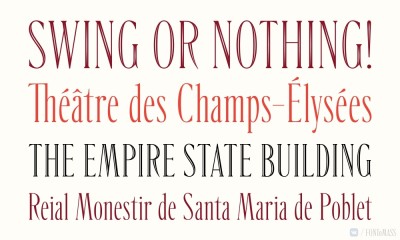
Beaujolais Font is perfect for French wine estate branding, vineyard tasting room signage, wine festival promotional materials, gourmet restaurant menus, French countryside tourism, wine cellar displays, sommelier certification programs, and elegant wine appreciation campaigns.
What makes Beaujolais Font so exciting is its wine sophistication that captures the refined elegance and viticultural excellence of French winemaking traditions and vineyard heritage. This typeface features graceful letterforms with wine-inspired proportions, vineyard character details, and French styling that evokes rolling vineyards, wine cellars, and the kind of sophisticated taste that defines memorable wine experiences and viticultural excellence.
Beaujolais Font typically comes in regular and bold weights, often including ultra-elegant variations and extended character sets with wine symbols, vineyard ornaments, French elements, and comprehensive international language support, all designed to maintain the authentic French wine aesthetic.
The Beaujolais Font Free Download represents the ideal typography choice for wine industry professionals and French cultural brands seeking to communicate viticultural sophistication, wine heritage, and French elegance in their marketing communications. Winery owners and wine tourism marketers consistently select wine-inspired fonts like Beaujolais Font to establish connections with wine enthusiasts and convey the sophisticated quality that defines successful wine experiences and French viticultural traditions. The font's elegant character makes it particularly effective for applications where wine sophistication, French heritage, and viticultural excellence are essential brand characteristics.
French wineries and wine education centers particularly appreciate how Beaujolais Font conveys wine sophistication and French elegance in their marketing materials and educational presentations. The font excels in both traditional wine industry print applications and modern digital wine platforms, maintaining its sophisticated character while ensuring excellent readability across various wine and cultural contexts. Wine festival organizers and French restaurant owners frequently implement this font for promotional campaigns and cultural branding, as its French styling perfectly captures the wine sophistication and viticultural heritage that appeals to audiences seeking authentic French wine experiences. Whether you're designing French wine estate promotional materials, creating wine tasting event invitations, or developing brand identity for gourmet French restaurants, this font delivers the authentic French wine sophistication aesthetic that resonates with wine enthusiasts seeking viticultural excellence, French heritage, and the transformative power of wine culture that celebrates the art of winemaking through centuries of French tradition, terroir appreciation, and the refined sophistication of wine appreciation that brings people together through shared appreciation of viticultural mastery.